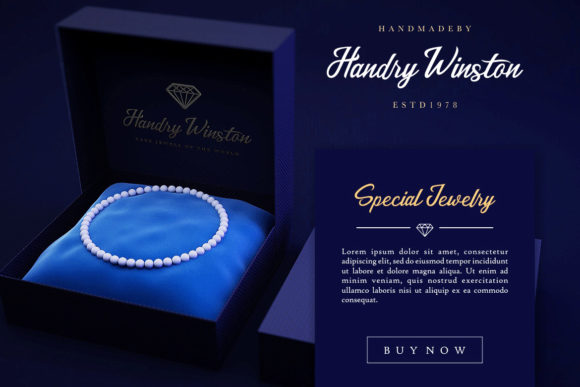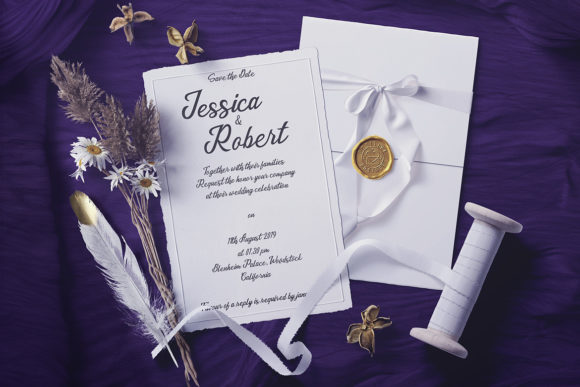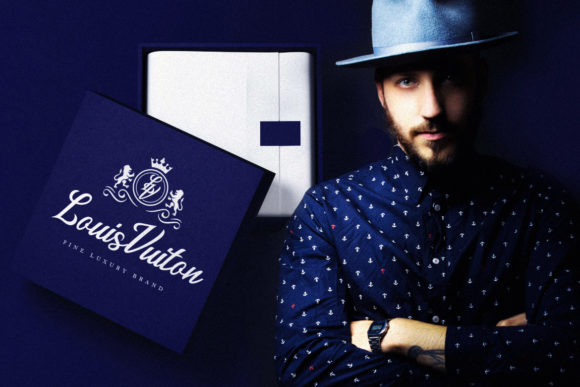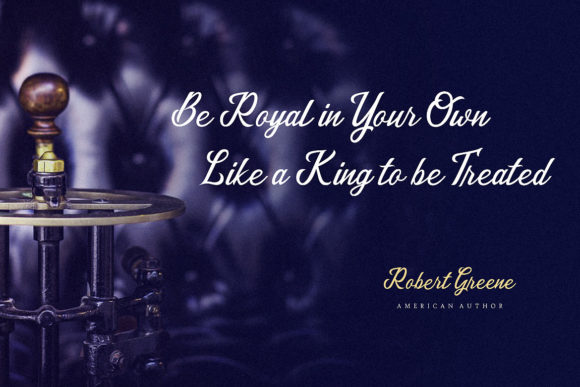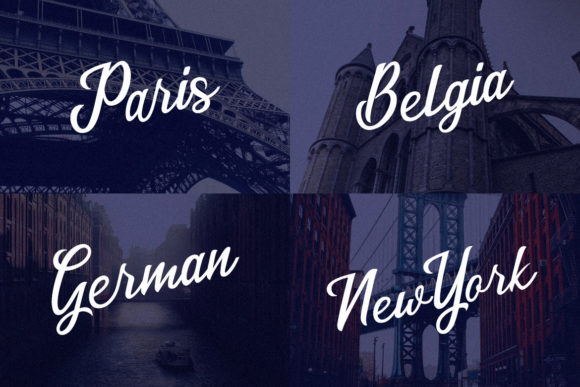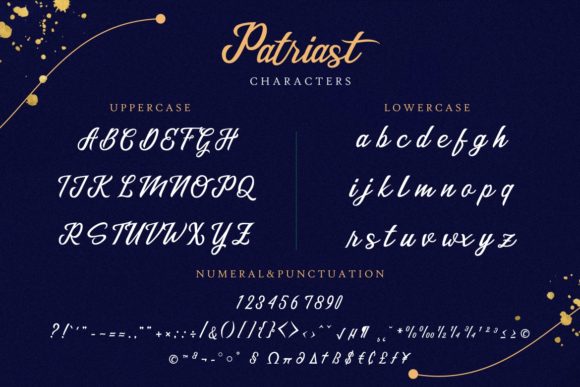
Introduction to Patriast Font
Patriast is a delightfully charming script with an elegant feel.
Fall in love with its dazzling style, and take any DIY project to the next level with this must-have .
Key Features of Patriast Font
Why Choose Patriast Font?
Patriast Font offers exceptional quality and versatility, making it a valuable addition to your design toolkit. Whether you’re creating for personal projects or commercial use, Patriast Font delivers professional results.